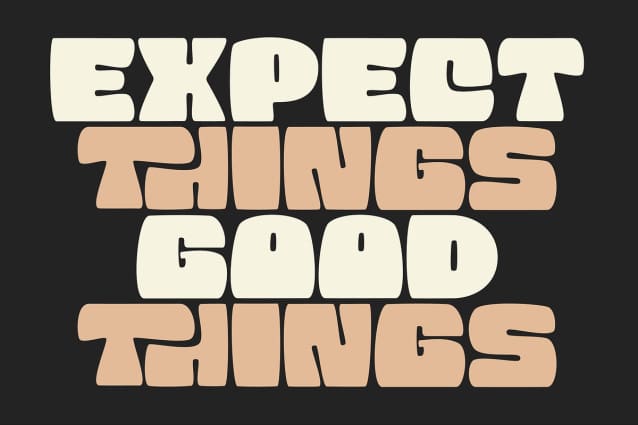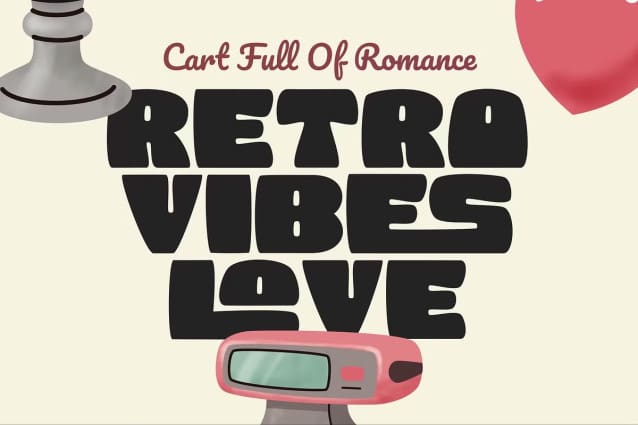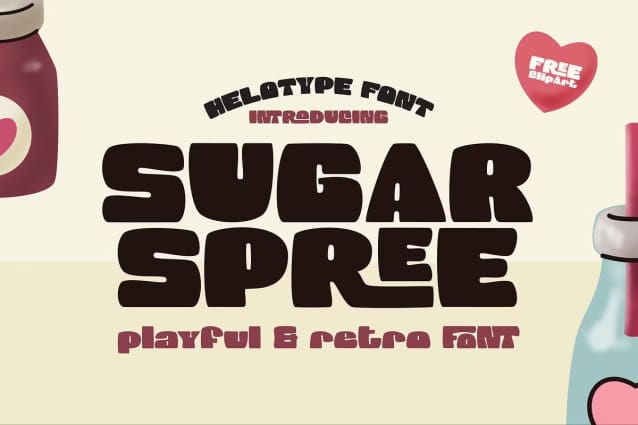
Sugar Spree Font
Sugar Spree Font is a playful retro display font that’s bursting with personality. Its bold, chunky letters and charming details capture the spirit of vintage candy shops and sweet treats. Perfect for creating eye-catching headlines, logos, and packaging that will leave a lasting impression.